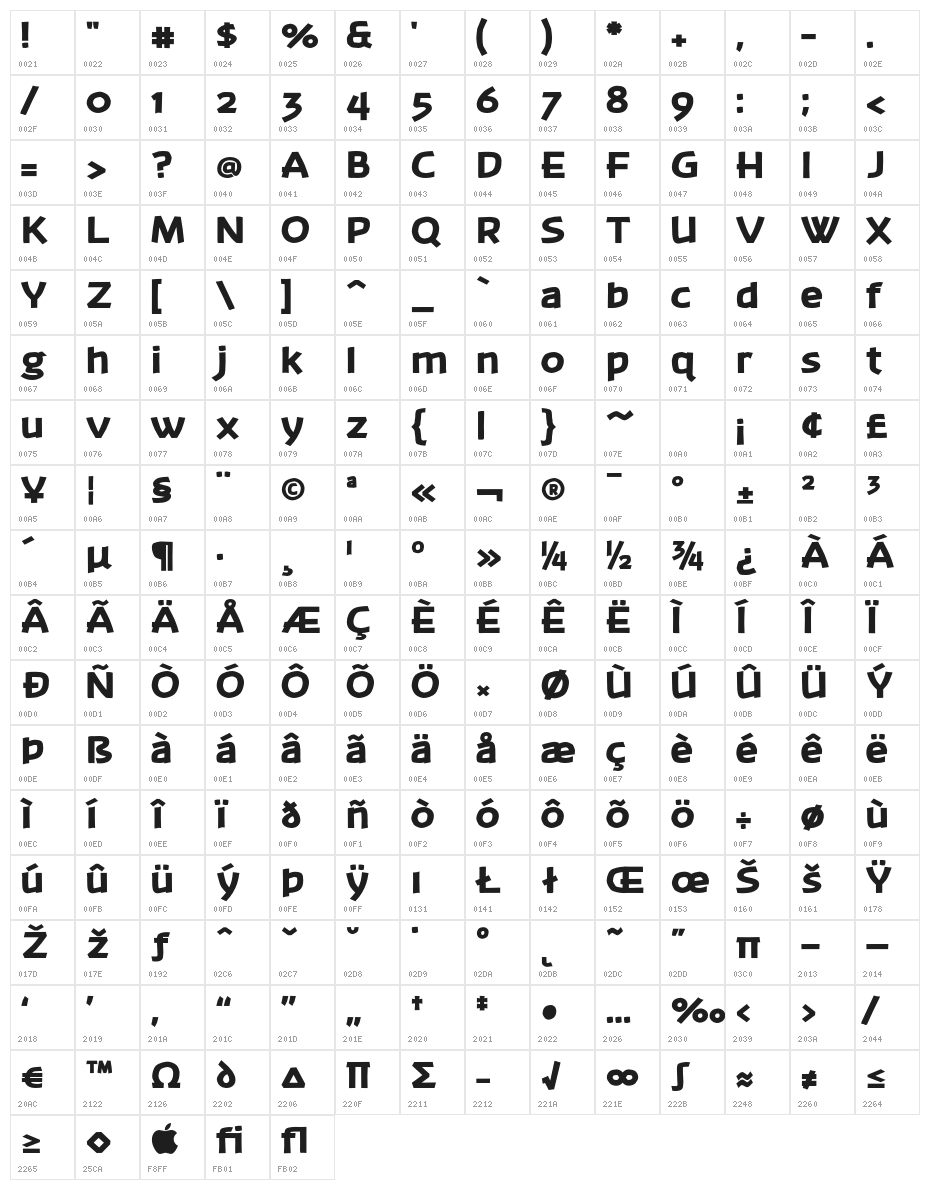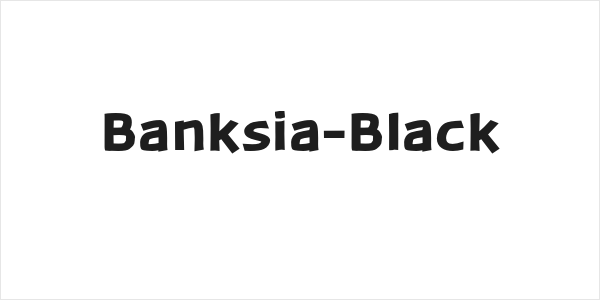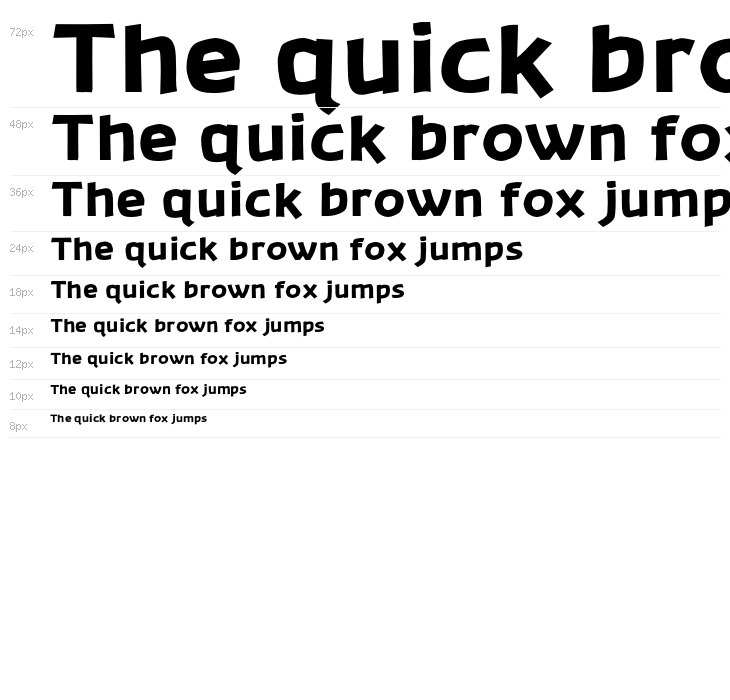
Banksia-Black Font
Banksia-Black Description
This font features a bold and assertive style with a strong presence. The characters are crafted with thick strokes, giving them a robust and impactful appearance. The angular and geometric design elements add a modern touch, while the consistent weight across all characters ensures uniformity. The uppercase letters are particularly striking, with a commanding presence that makes them ideal for attention-grabbing headlines. The lowercase letters maintain the same boldness, providing a cohesive look throughout. Numbers and special characters are equally bold, ensuring they stand out in any context.
| Proposed Projects | Ideal for branding, headlines, posters, and any design requiring a bold statement. |